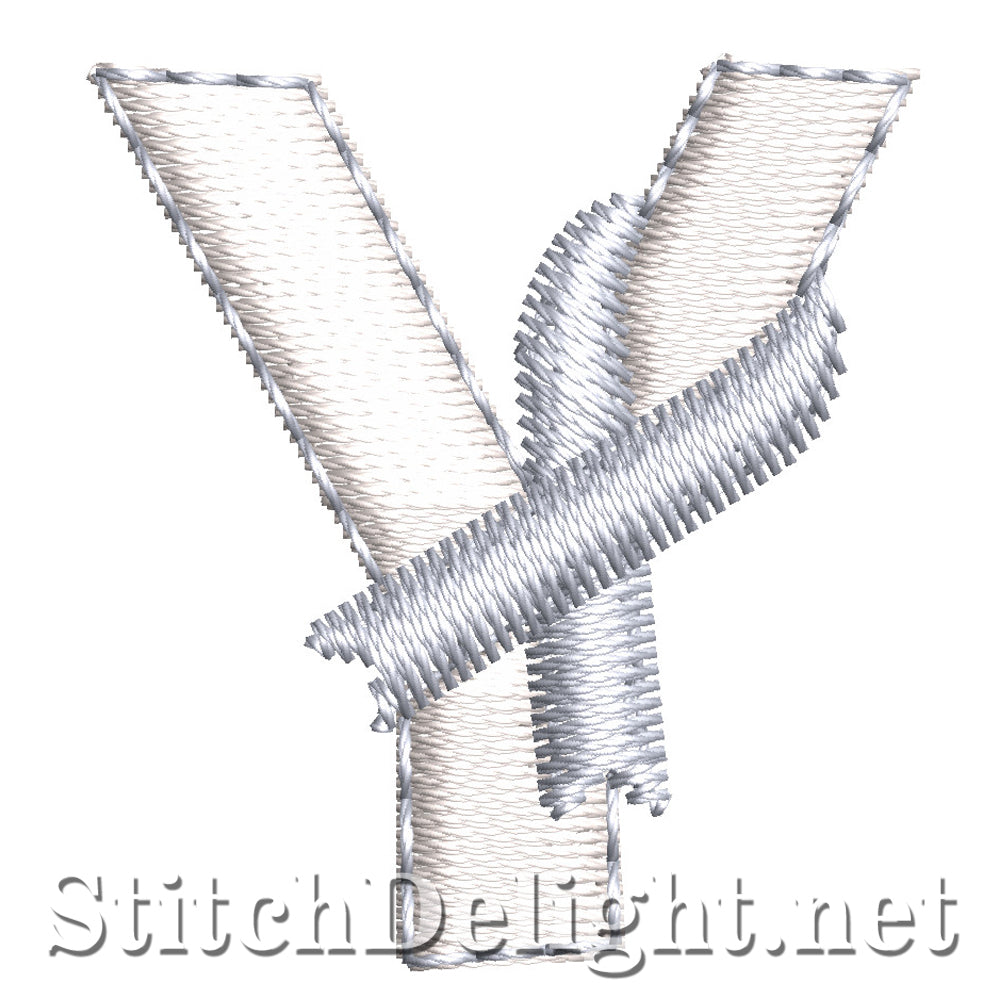
SDS1751 Cancer Font Y
The cancer font is made for the 4x4 hoop and has an average height of only 1" making this ideal for garment stitching or on gifts.